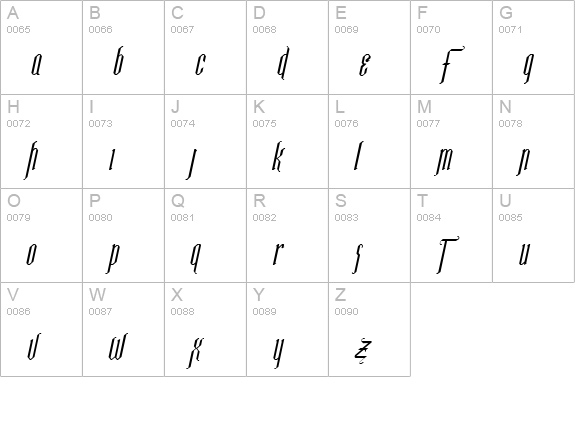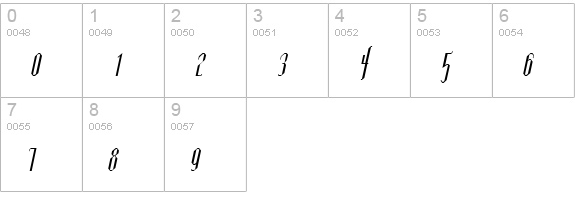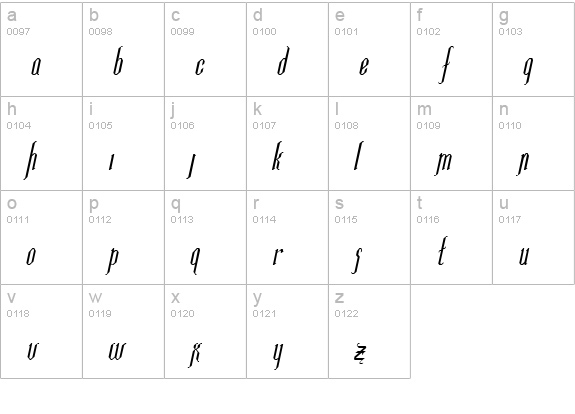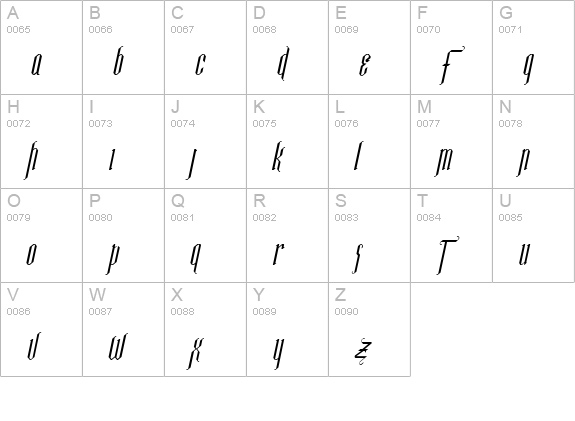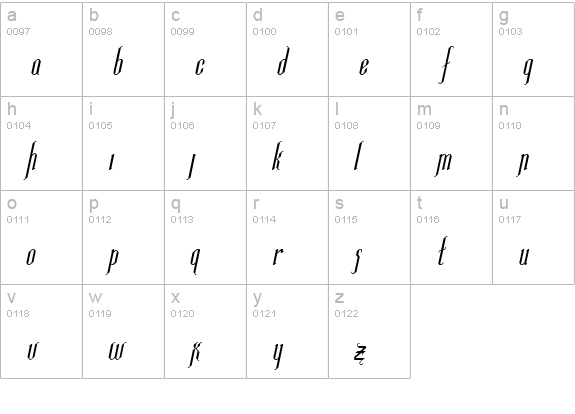
Ipswich Italic is a distinctive, italic variant in the Ipswich typeface family \xE2\x80\x94 well suited to design and typography projects.
Introducing Ipswich Italic, a stunningly elegant font that effortlessly combines classic charm with a modern twist. This exquisite typeface is the perfect choice for those seeking a touch of sophistication and refinement in their designs. With its graceful curves and delicate serifs, Ipswich Italic captures attention and adds a touch of elegance to any project. Whether used for logos, headlines, or body text, this font exudes a sense of timeless beauty that is sure to leave a lasting impression. But what sets Ipswich Italic apart from other fonts is its accessibility. In a world where quality often comes at a price, Ipswich Italic breaks the mold by being freely available for download at FontsMarket.com. Yes, you heard it right - this incredible font can be yours without spending a dime! Now, designers and creatives alike can elevate their work without breaking the bank. Ipswich Italic offers a rare combination of exquisite design and affordability, making it an invaluable asset for professionals and enthusiasts alike. Imagine the possibilities that come with a font that seamlessly blends vintage allure with contemporary flair. From wedding invitations to high-end branding projects, Ipswich Italic's versatility knows no bounds. It effortlessly adapts to any style, ensuring your designs stand out from the crowd. So why wait? Experience the beauty and versatility of Ipswich Italic today. Visit FontsMarket.com and download this remarkable font for free. Let your creativity flourish as you unlock a world of possibilities with Ipswich Italic – the font that proves elegance doesn't have to come at a price.